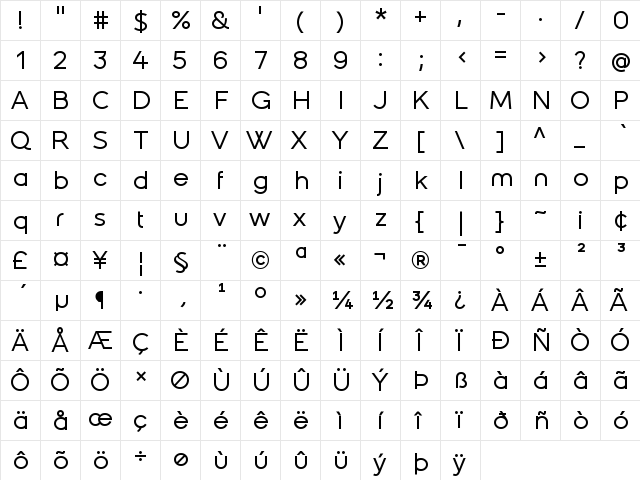
android medium Regular
Design Context for android medium Typeface
android medium is a composed and adaptable typeface that performs quietly and consistently across a wide range of design contexts.